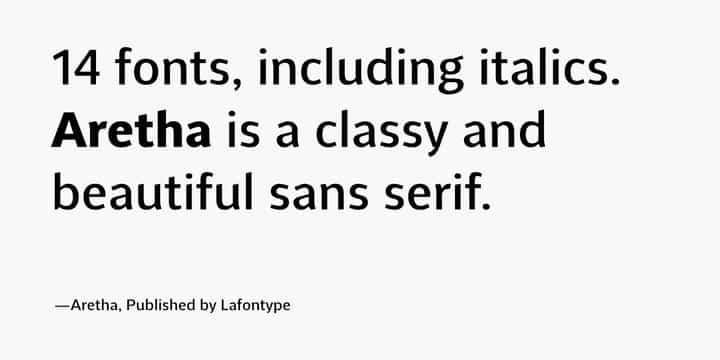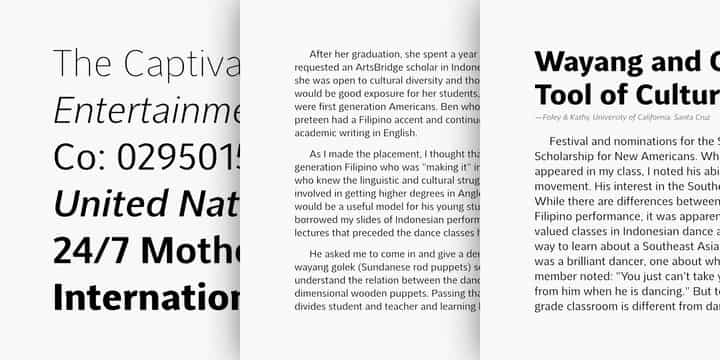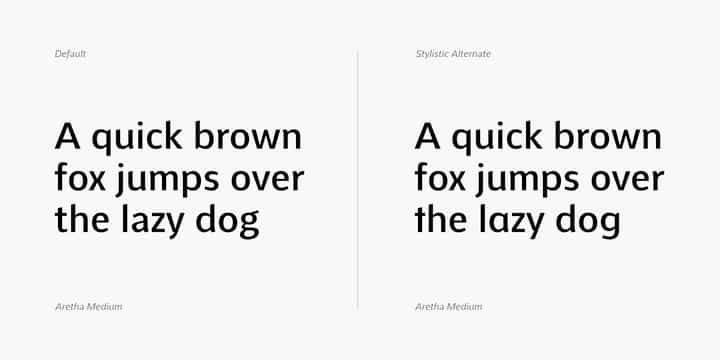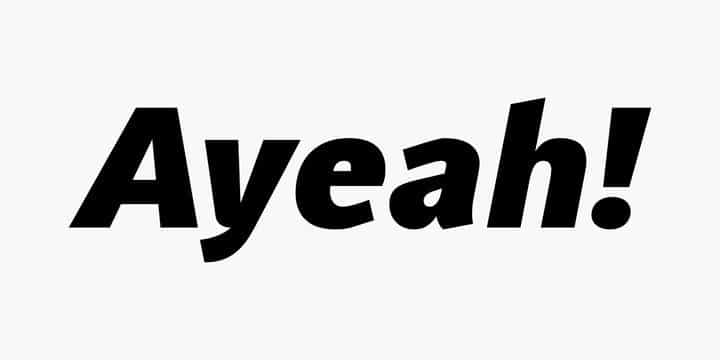
Aretha is a superfamily semi-condensed sans serif font that features humanistic versions of characters. This font was created with the goal of presenting clear, easy-to-read multipurpose font that is simple to read printed or on a screen.